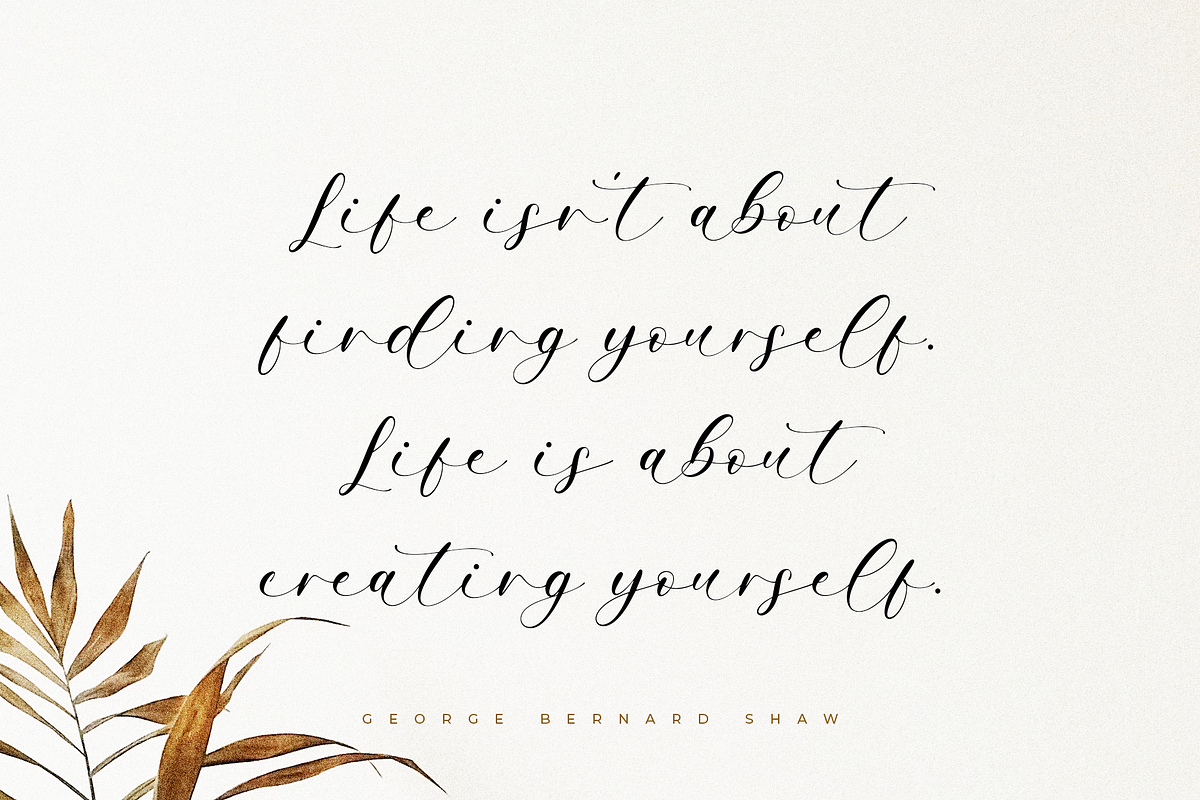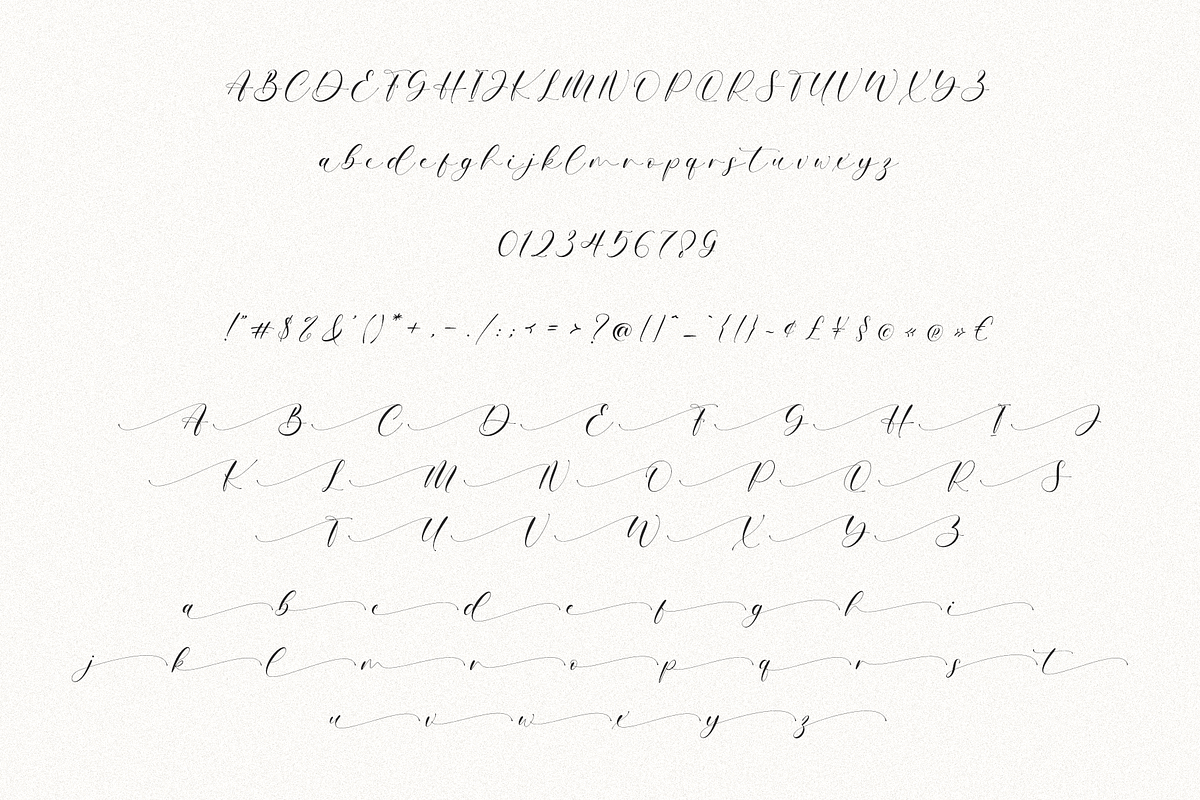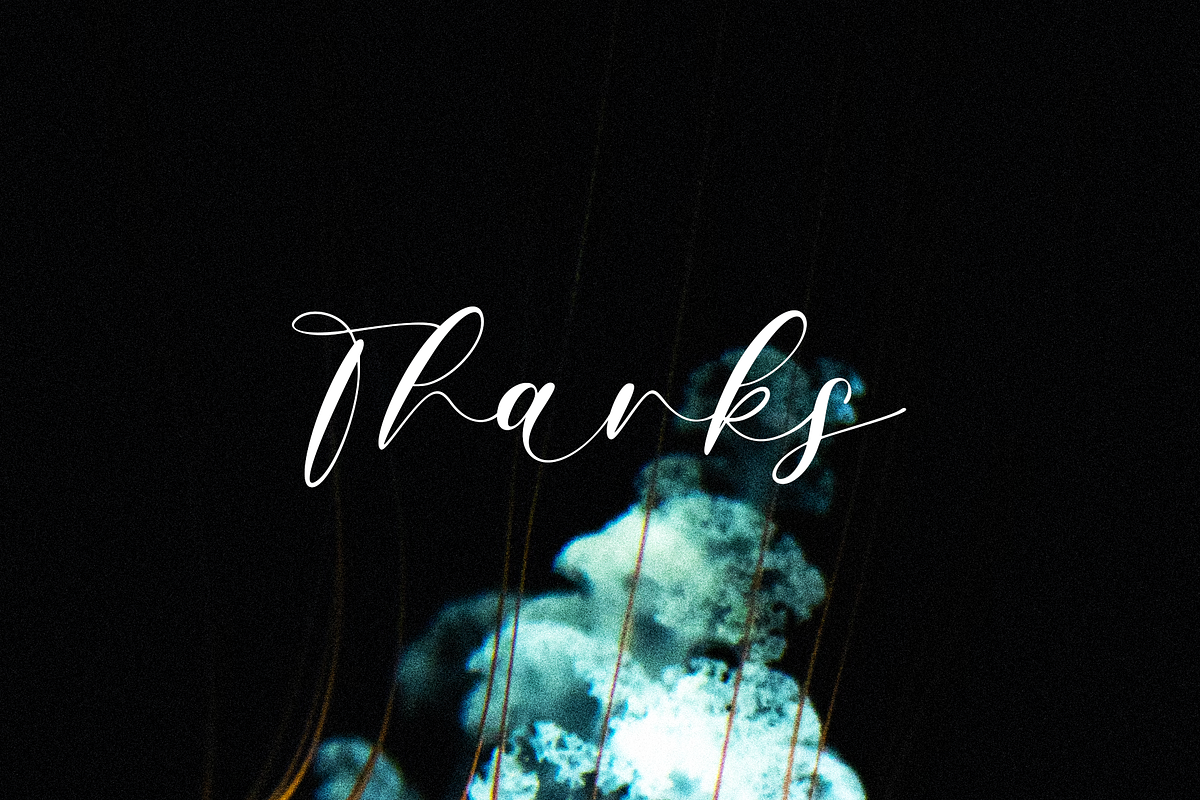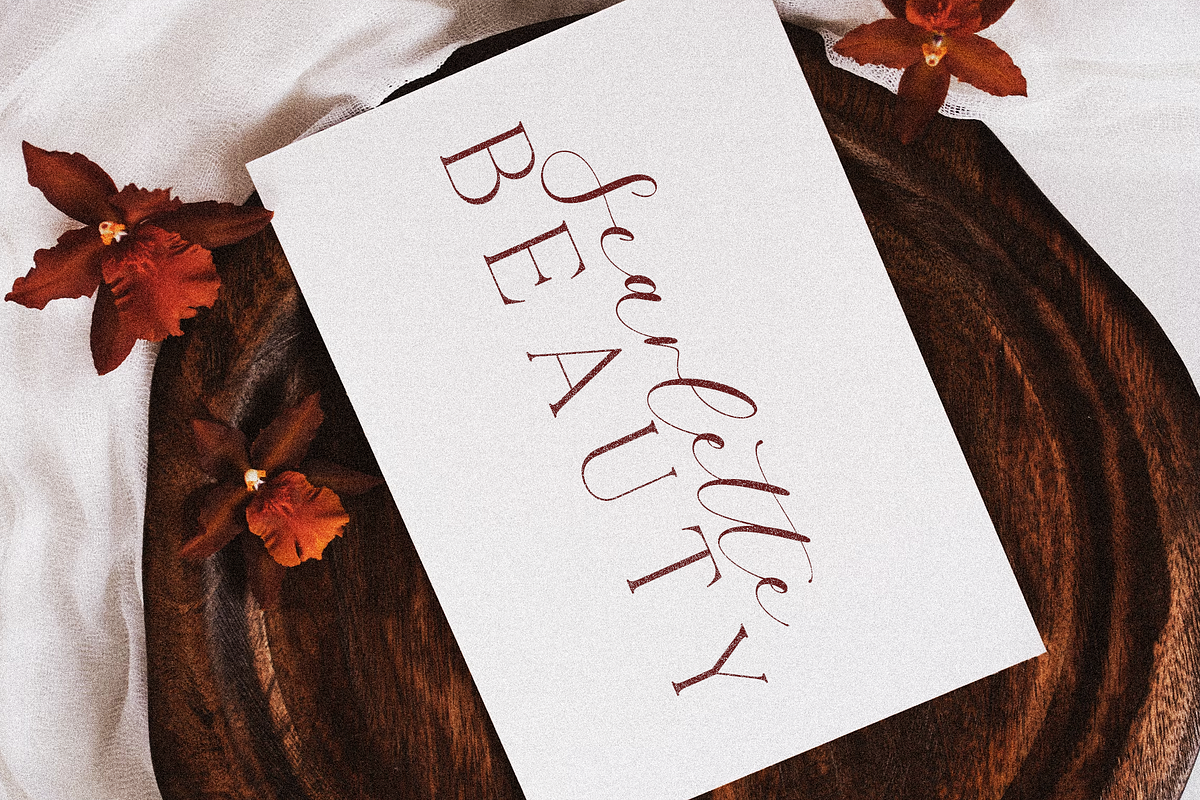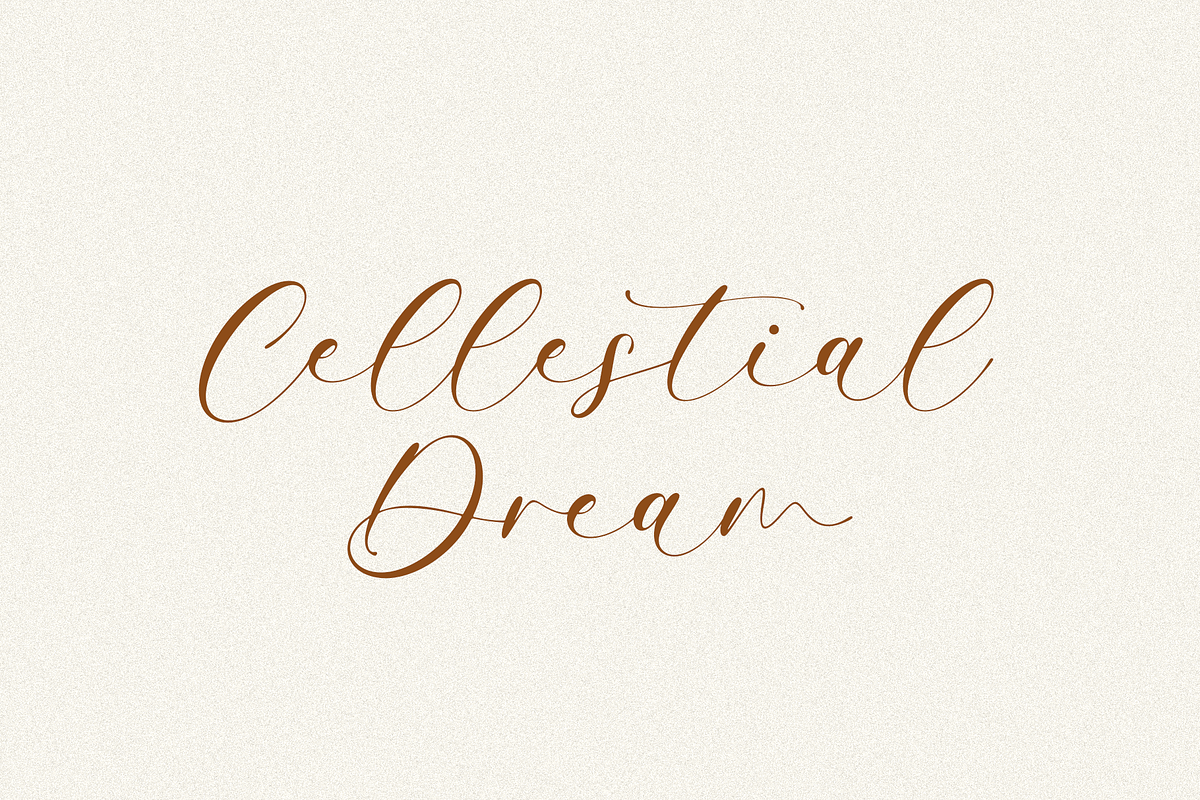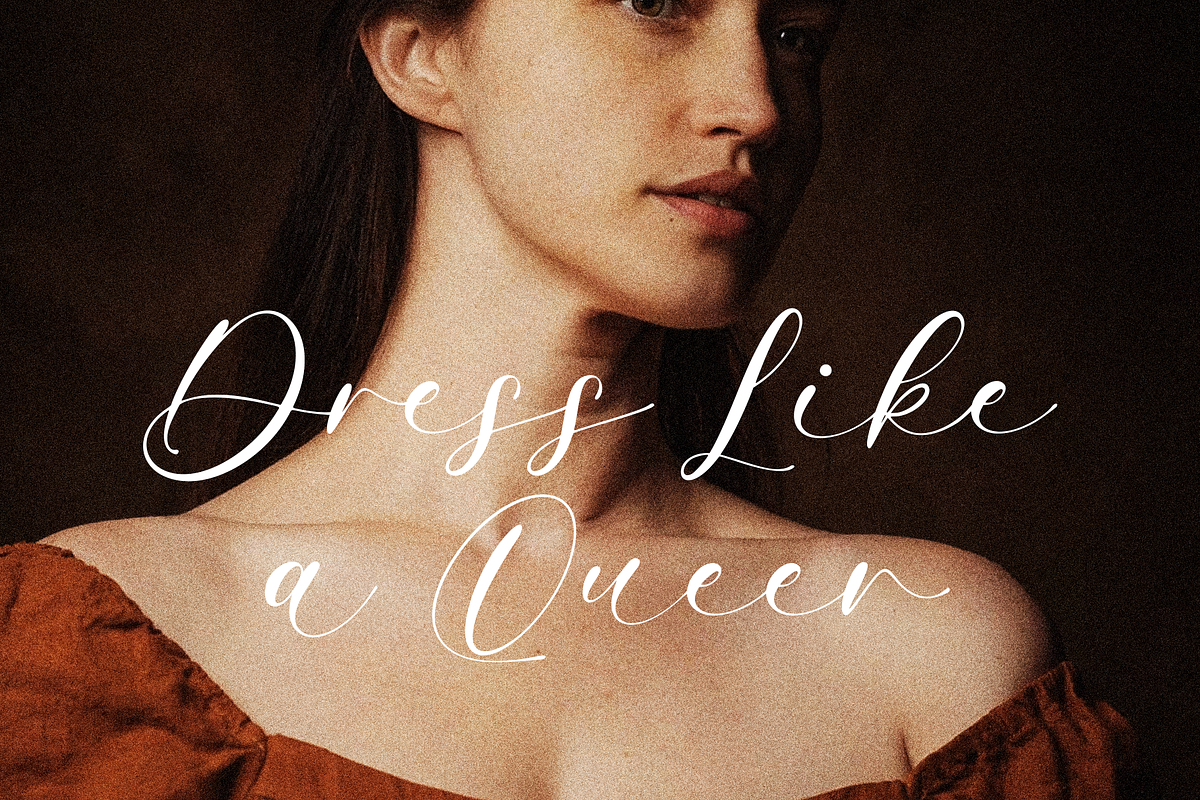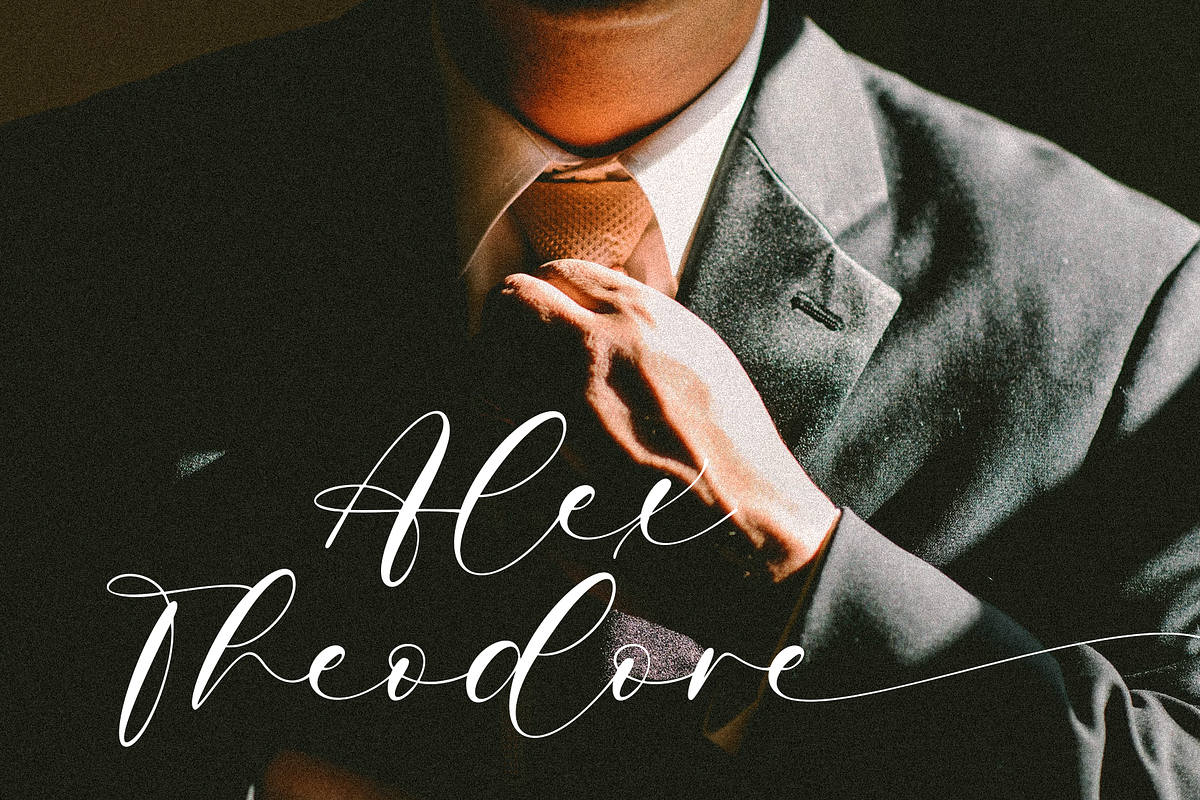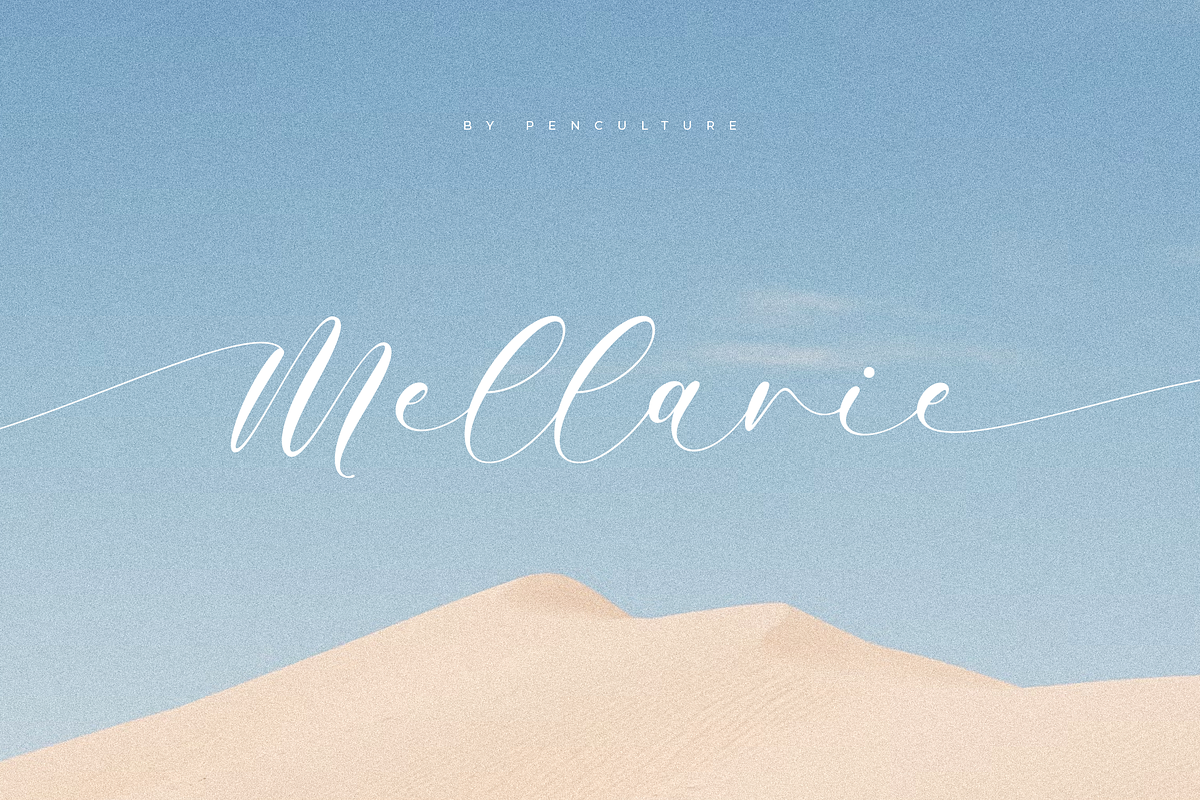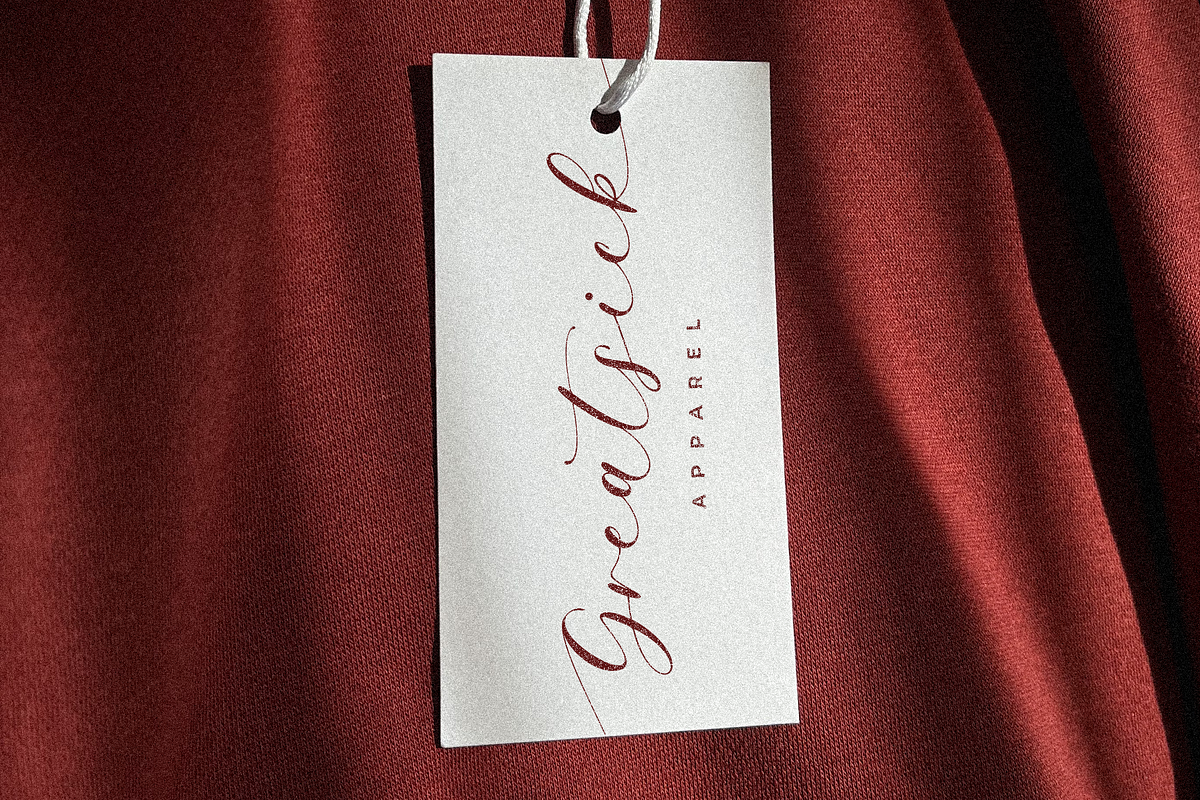
Mellanie Calligraphy Font
Introducing Mellanie, a graceful and stylish calligraphy font that brings timeless elegance to your designs. With its smooth curves, flowing strokes, and beautifully crafted beginning and ending swashes, Mellanie is perfect for anyone looking to add a touch of sophistication and charm to their work.
Whether you’re designing wedding invitations, logos, branding, social media graphics, or elegant packaging, Mellanie’s refined script style adds a delicate and romantic feel that captures attention.
Smooth and consistent curves
Swash alternates for stunning start and end letters
Perfect for weddings, logos, quotes, and stationery